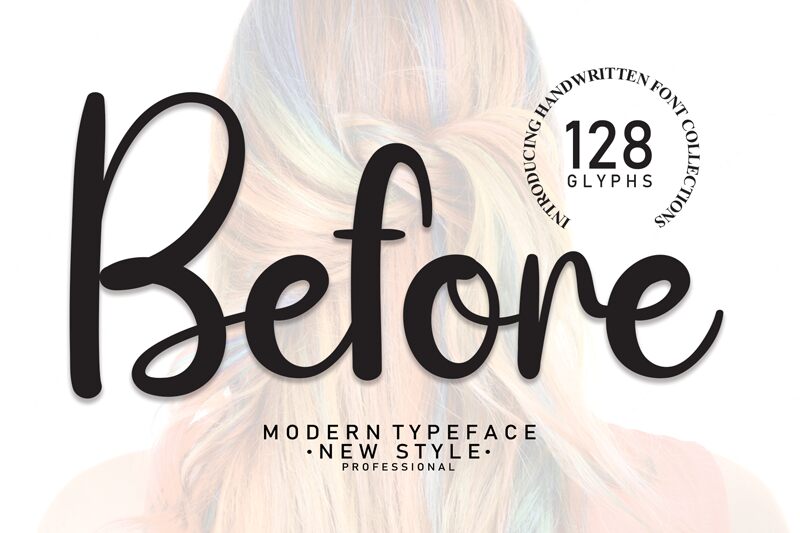
Before
Before, a creation by Scratchones, is a handwritten font that exudes charm and personality. Its strokes are reminiscent of elegant penmanship, with each character lovingly crafted to appear as though it flowed directly from an artist's quill. The font's irregular line thickness gives it a dynamic rhythm, capturing the spontaneity of human touch.
Its aesthetic appeal lies in its balance between sophistication and whimsy, making it perfect for projects that require a personal touch. Whether gracing the pages of an intimate invitation or adding character to branding materials, Before stands out for its ability to impart warmth and familiarity.
In design contexts where authenticity and approachability are paramount-from boutique signage to editorial headers-Before brings an element of artisanal craftsmanship that invites engagement and evokes nostalgia.